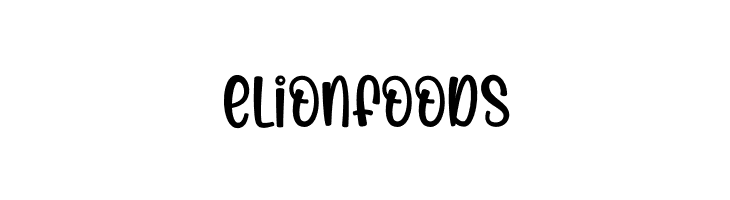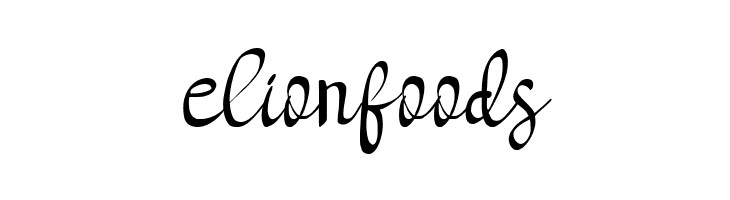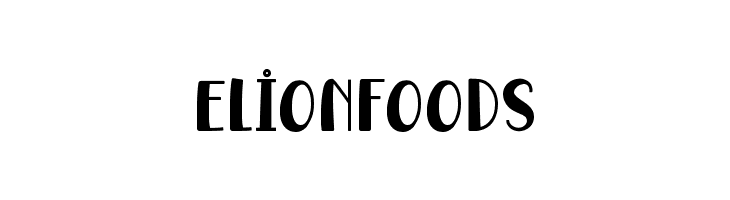
A playful, handwritten font with rounded, consistent strokes and a whimsical style.
A bold, expressive script font with dynamic strokes and elegant flow.
A playful, bold font with whimsical, hand-drawn letterforms.
A playful, hand-drawn font with bold, irregular strokes and a whimsical style.
A bold, geometric font with a futuristic and modern design.
A playful, casual handwritten font with smooth, flowing lines.
Playful handwritten font with a casual style.